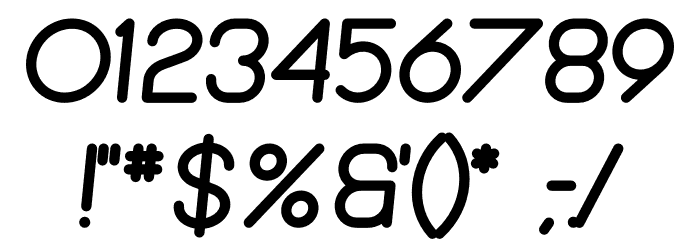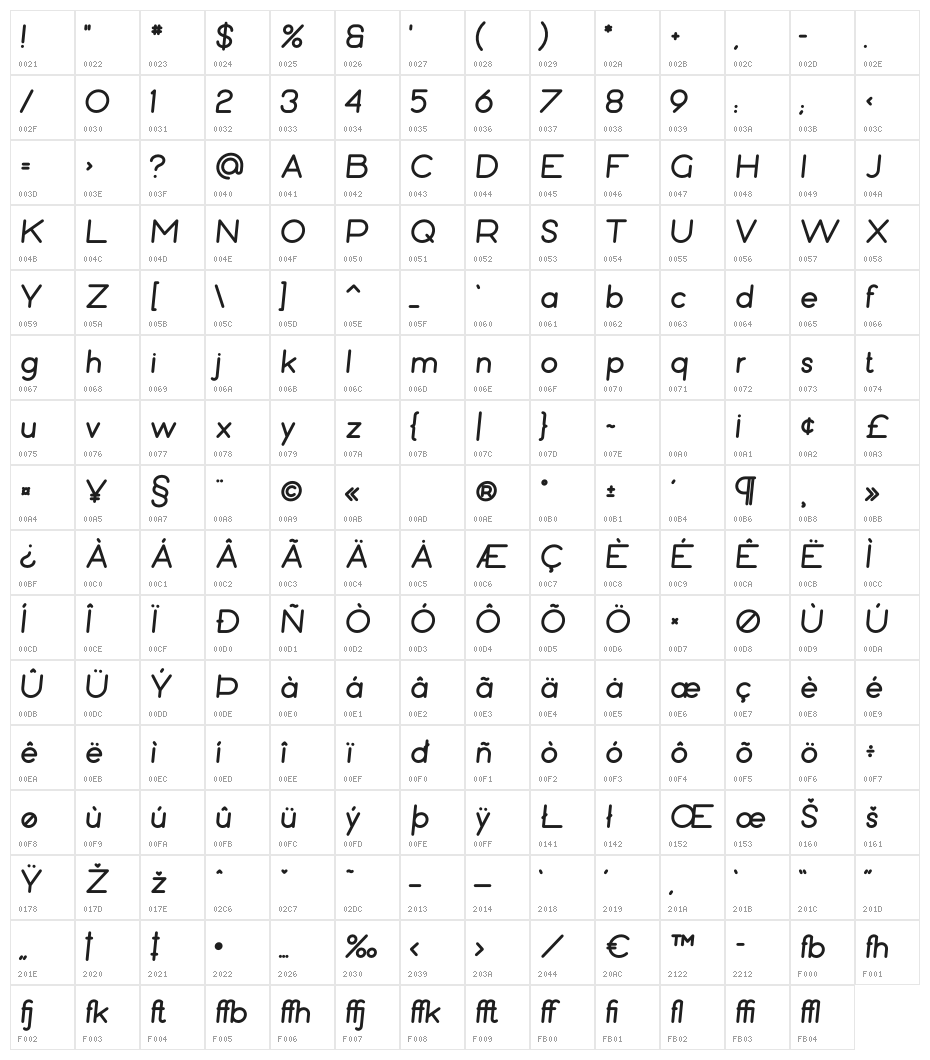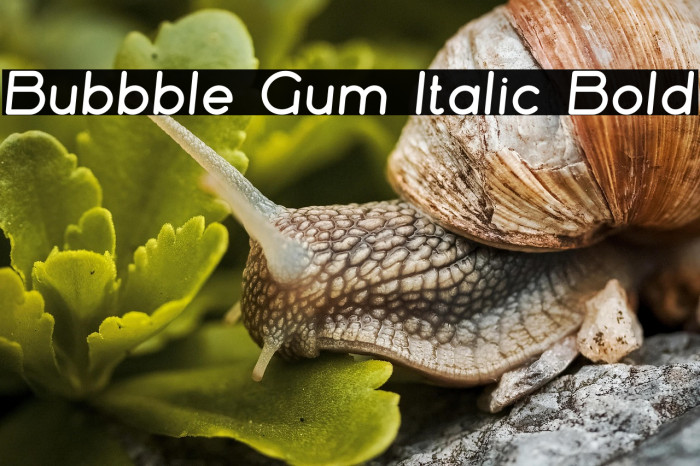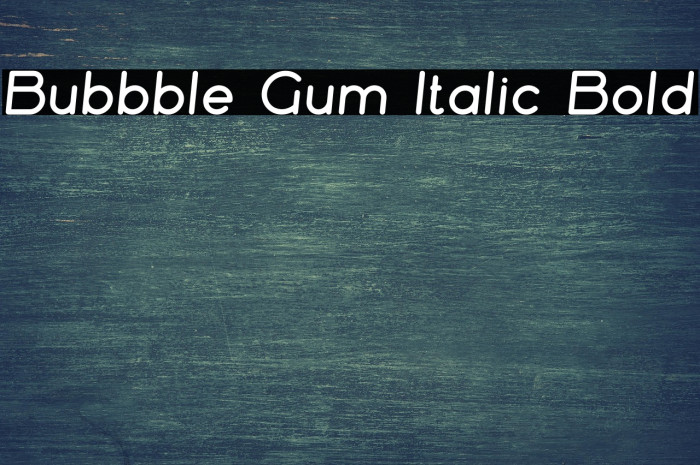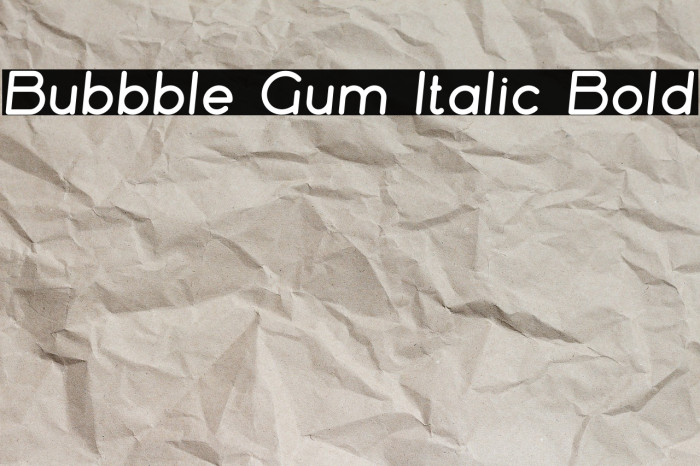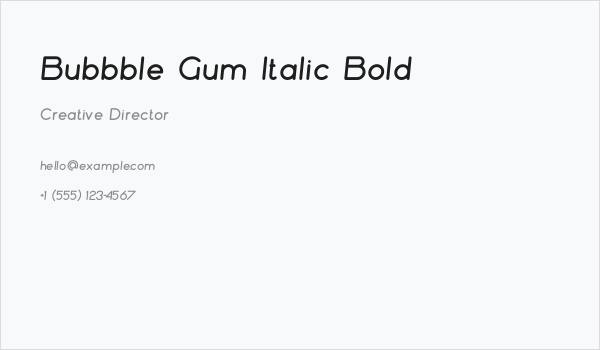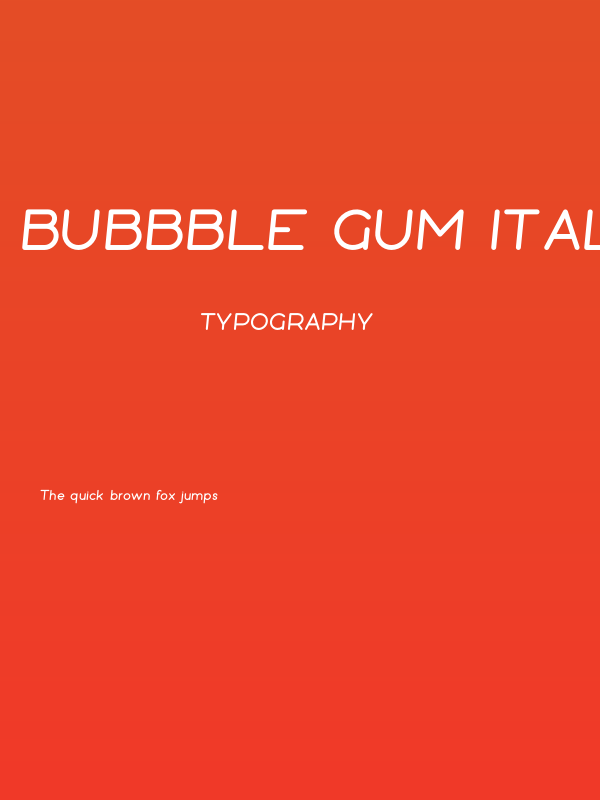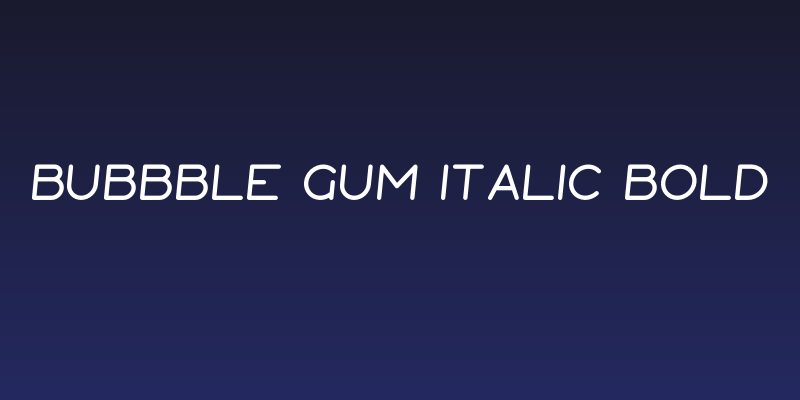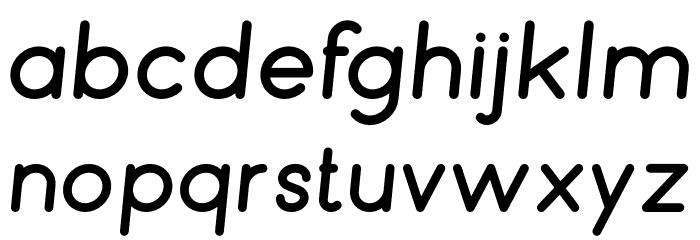
Bubbble Gum Italic Bold Font
Bubbble Gum Italic Bold Description
This font features a playful and rounded design, characterized by its smooth curves and friendly appearance. The letters are bold and italicized, giving them a dynamic and lively feel. The rounded edges and consistent stroke width contribute to its approachable and informal style. It maintains a uniformity across uppercase, lowercase, numerals, and special characters, making it versatile for various design needs. The font's bubbly nature makes it suitable for projects that require a fun and engaging aesthetic.
| Proposed Projects | Ideal for children's books, playful branding, greeting cards, and casual digital content. |